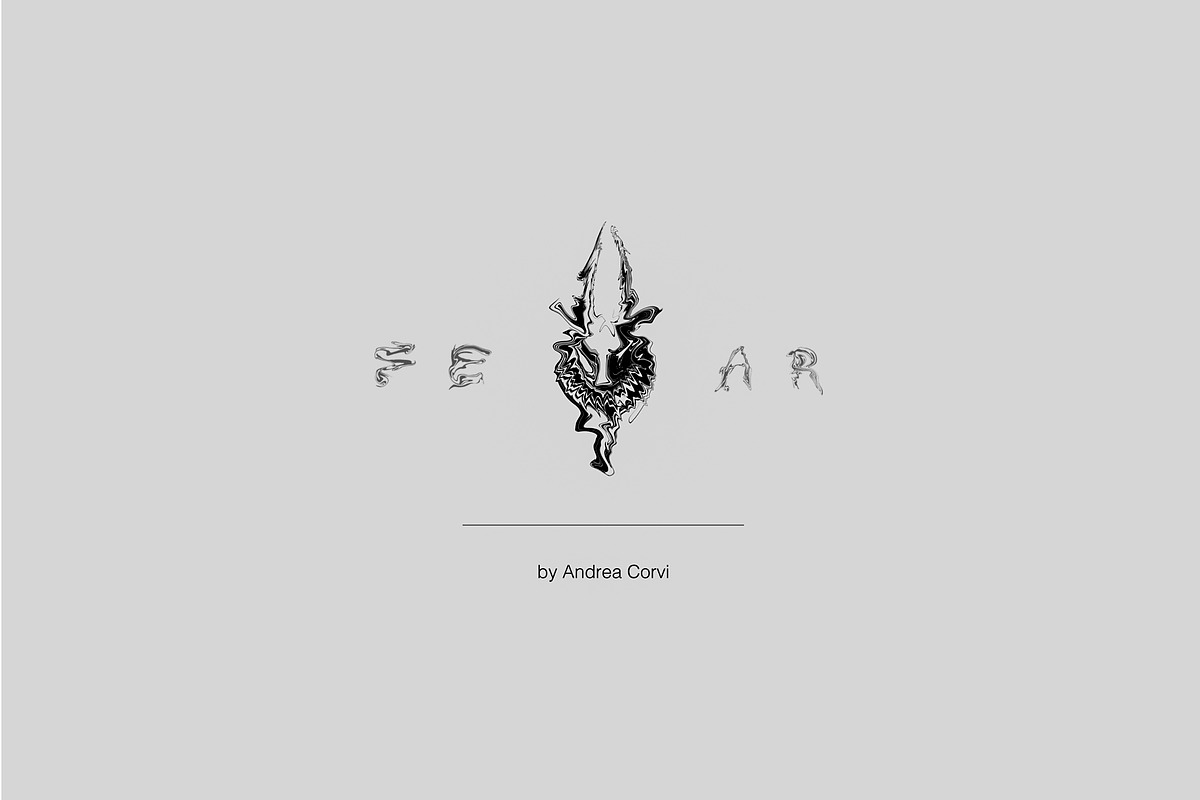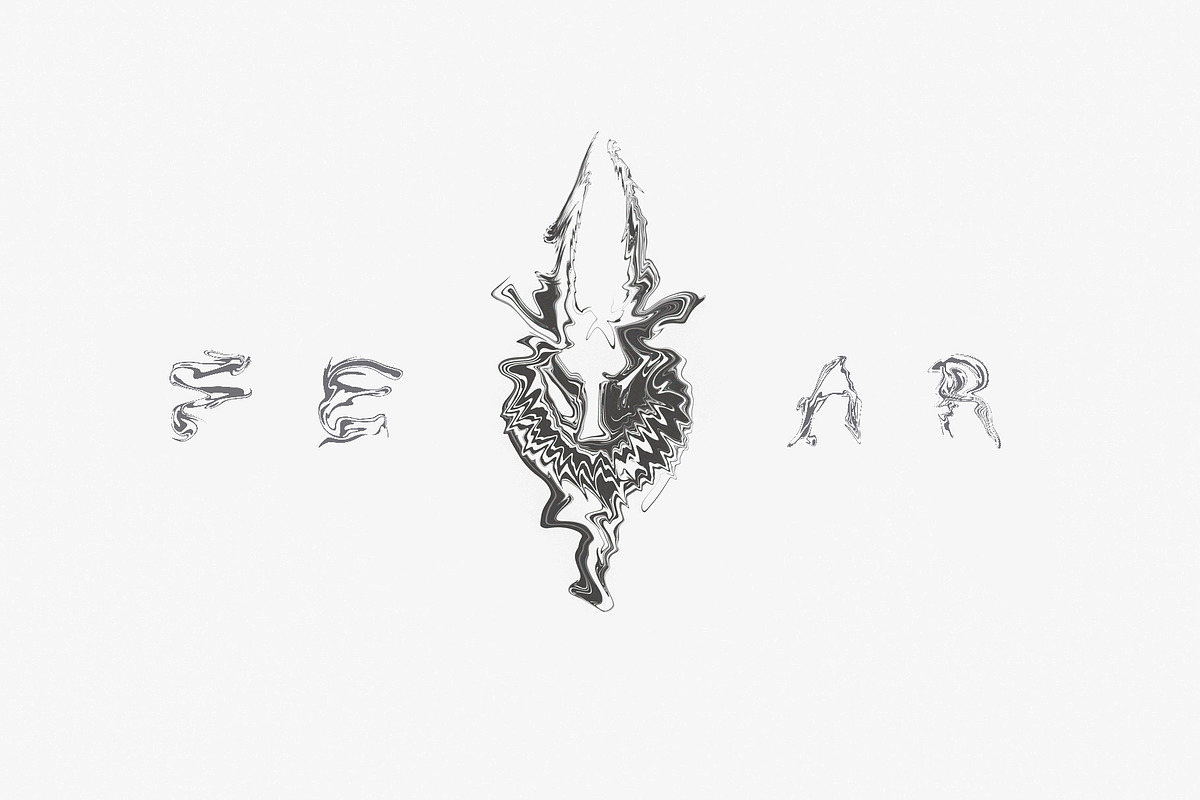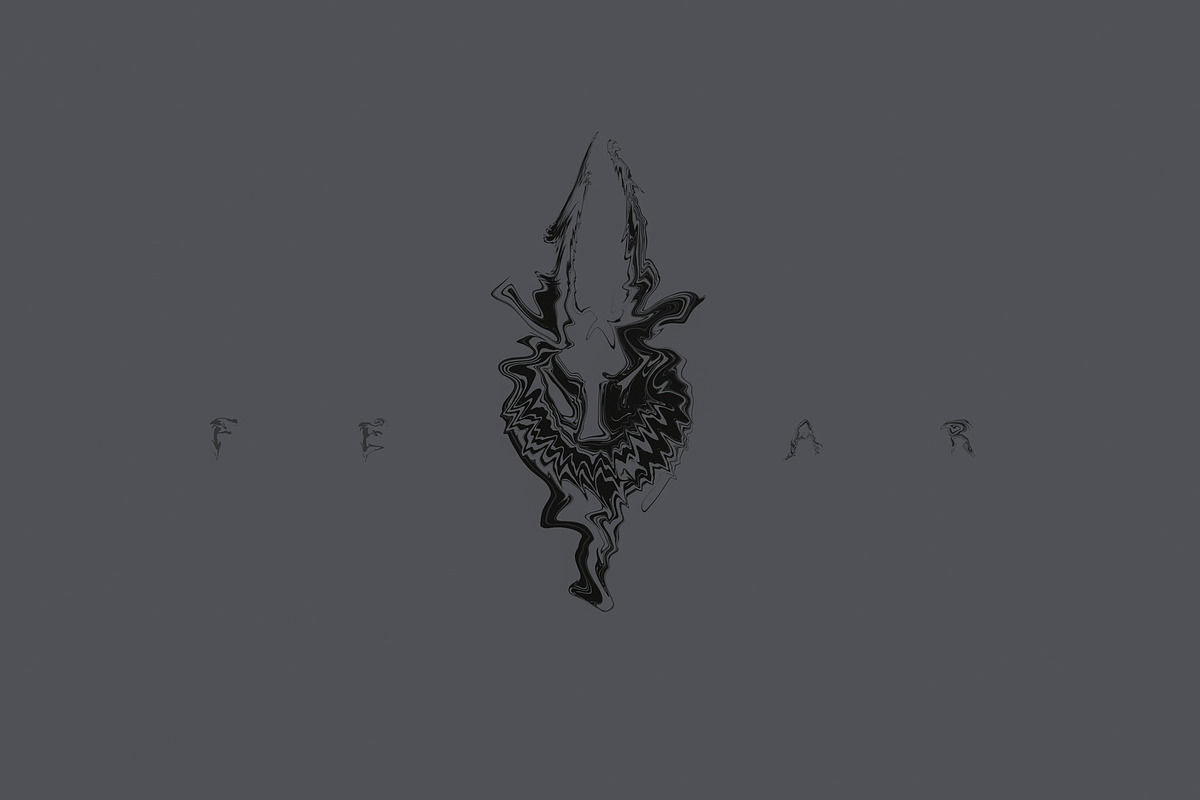
FEAR Font
Introducing my new font called Fear. Fear, created in Photoshop starting from a meticulous freehand design, will give you the huge impact that you are looking for in your works. Fear elegant and aggressive design is perfect for logos and big lettering, ideal to amaze and propose something really new.
FEAR Font by ANCRdesign fits naturally into Branding, posters, packaging, typography.